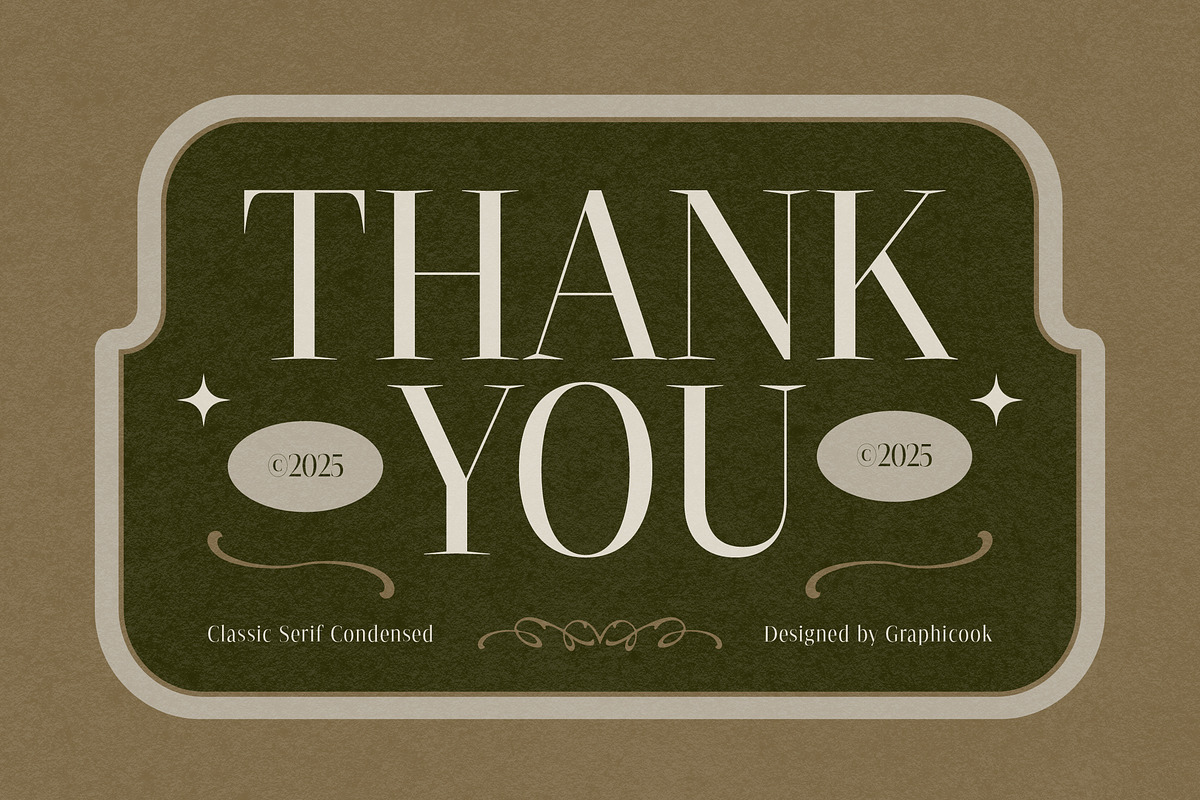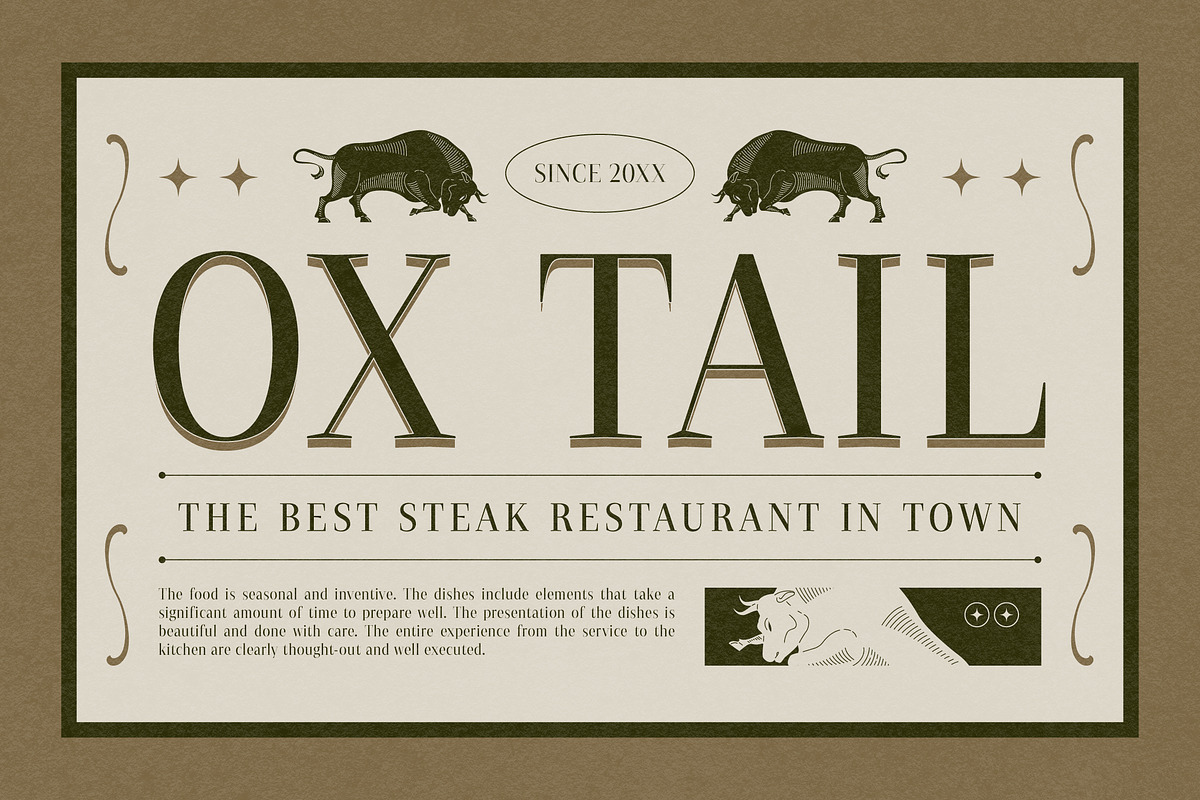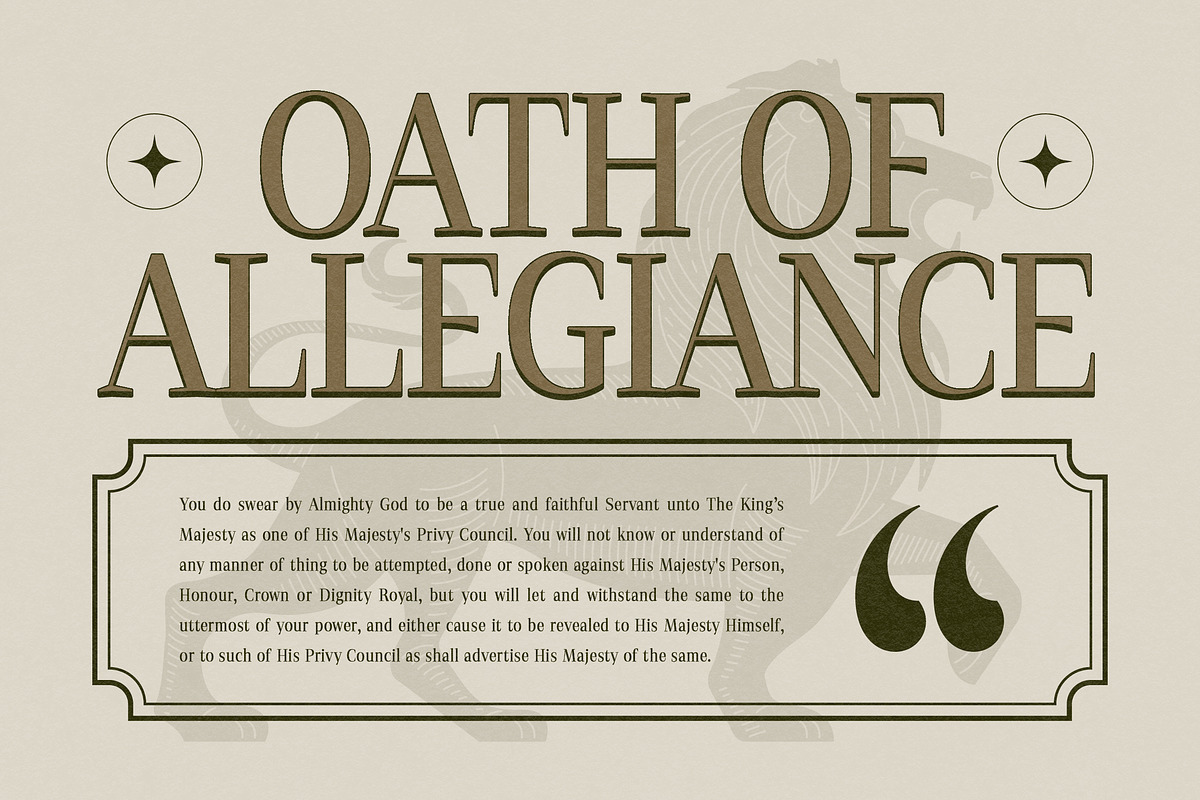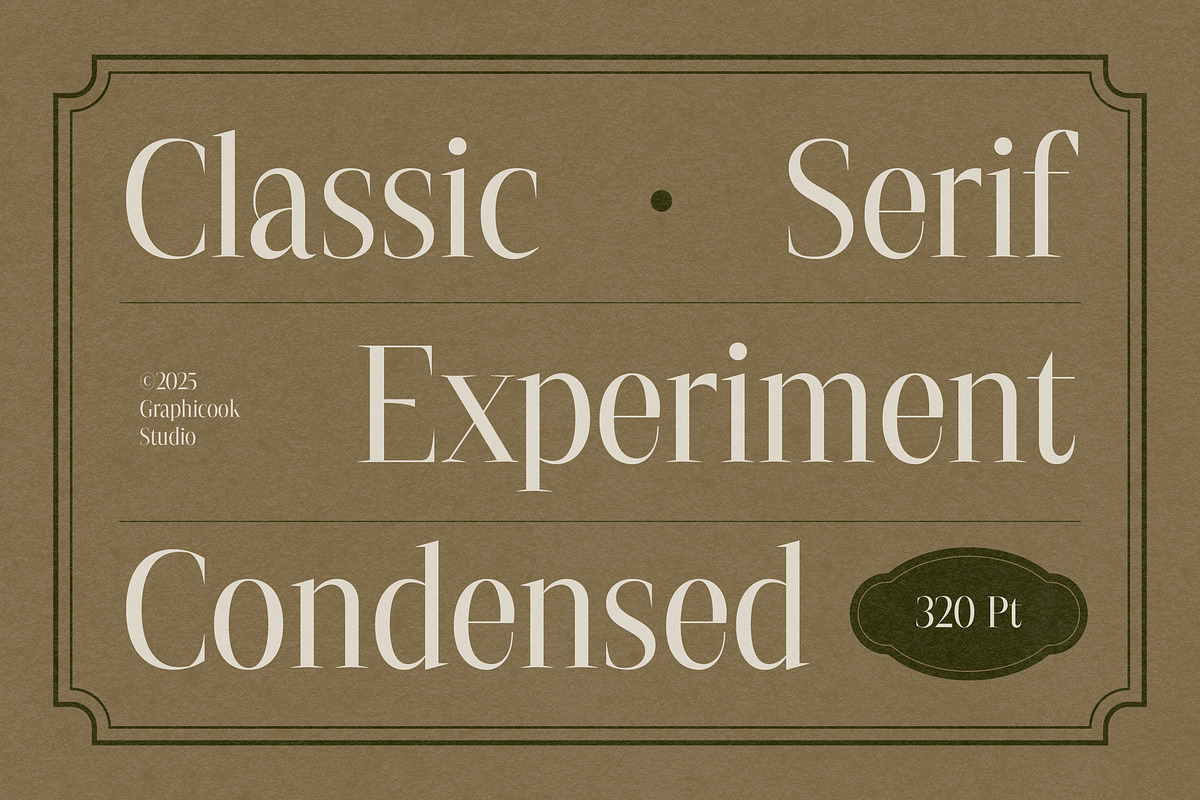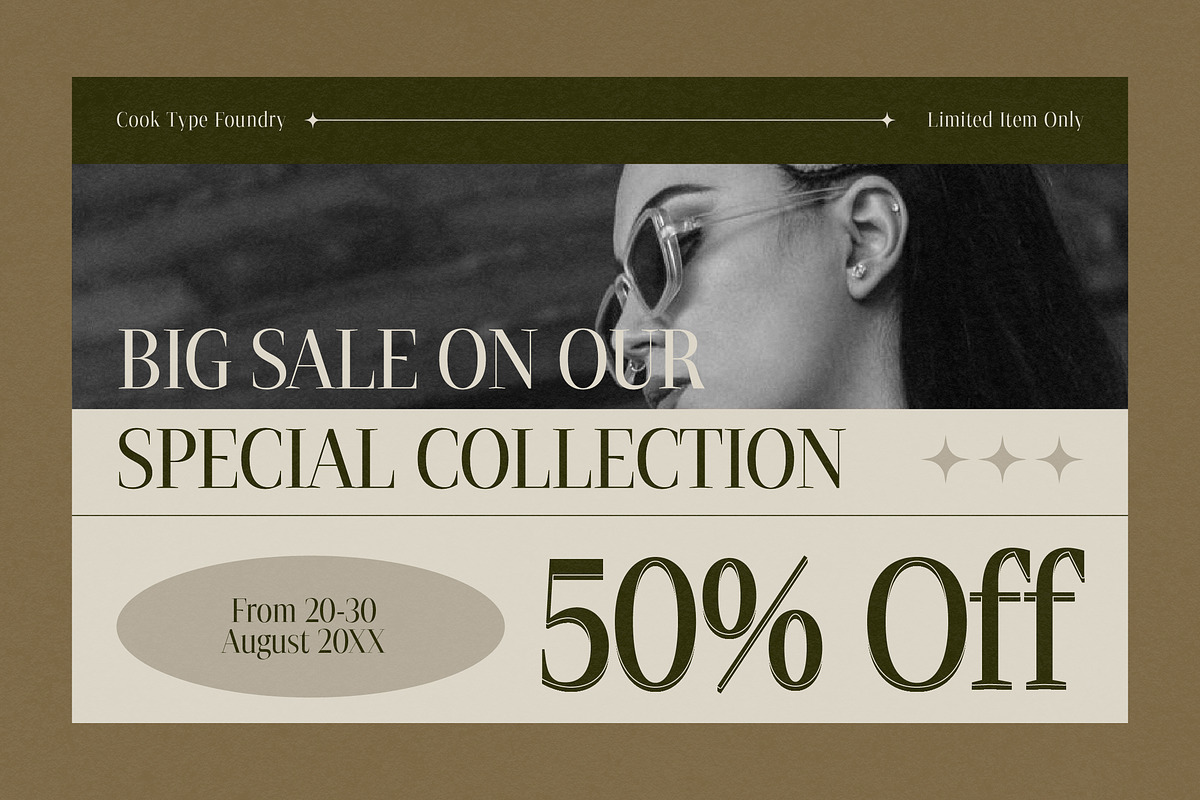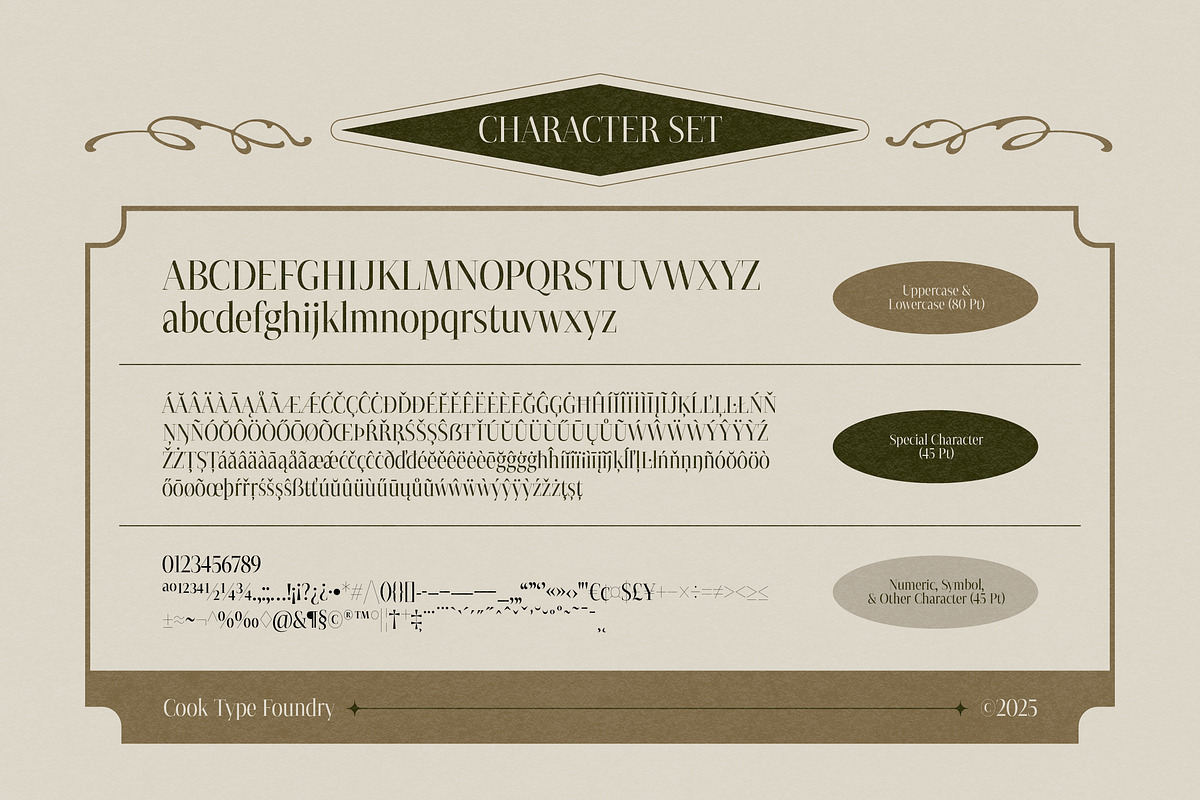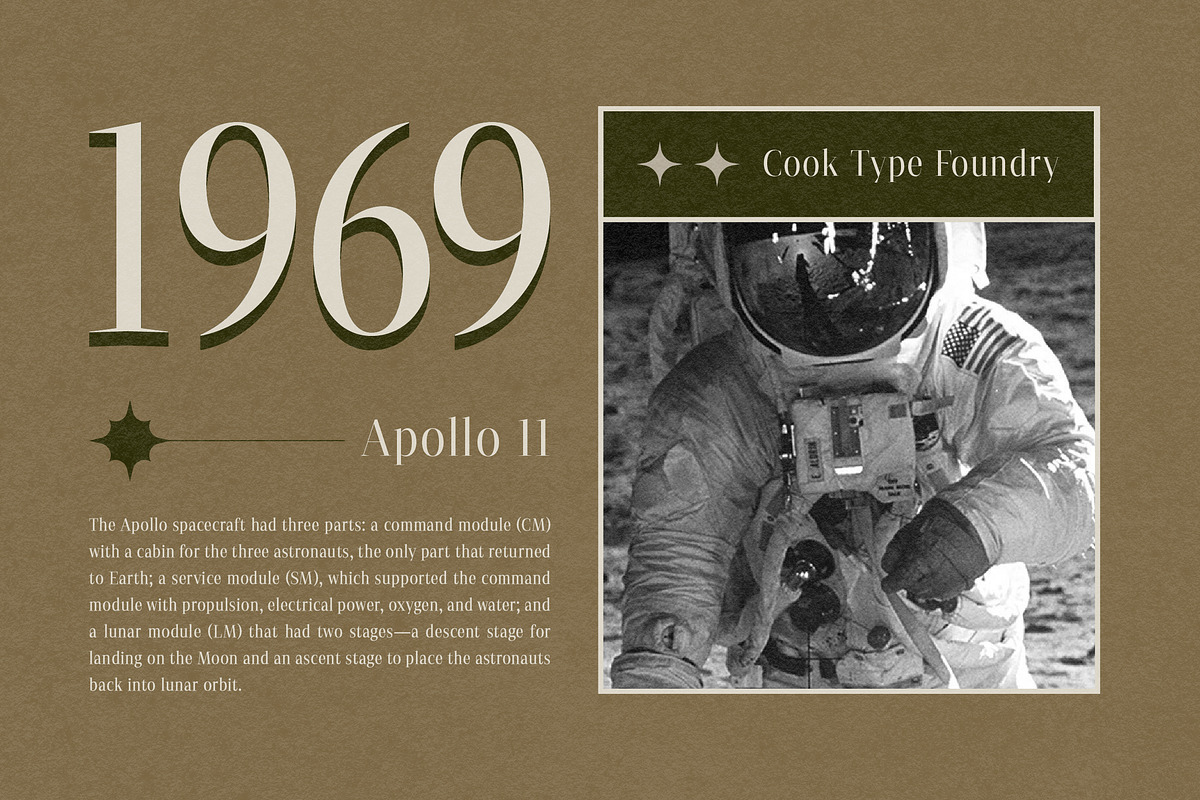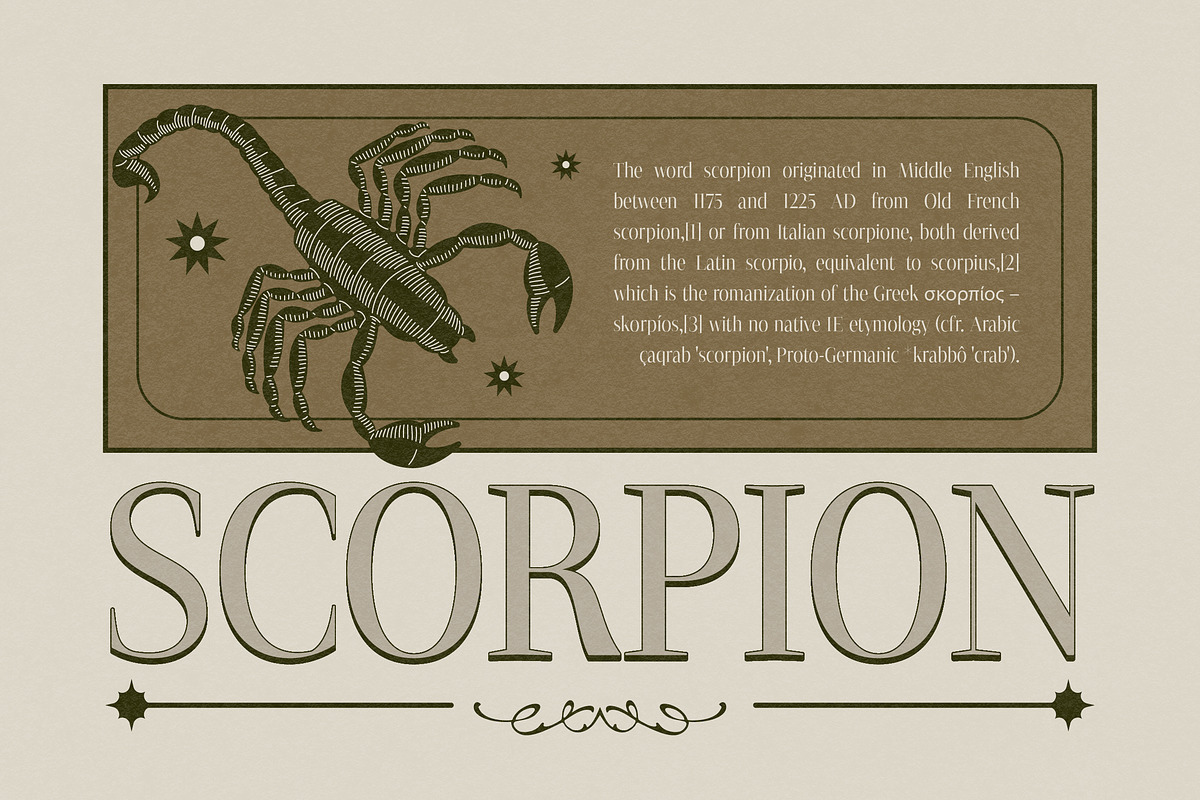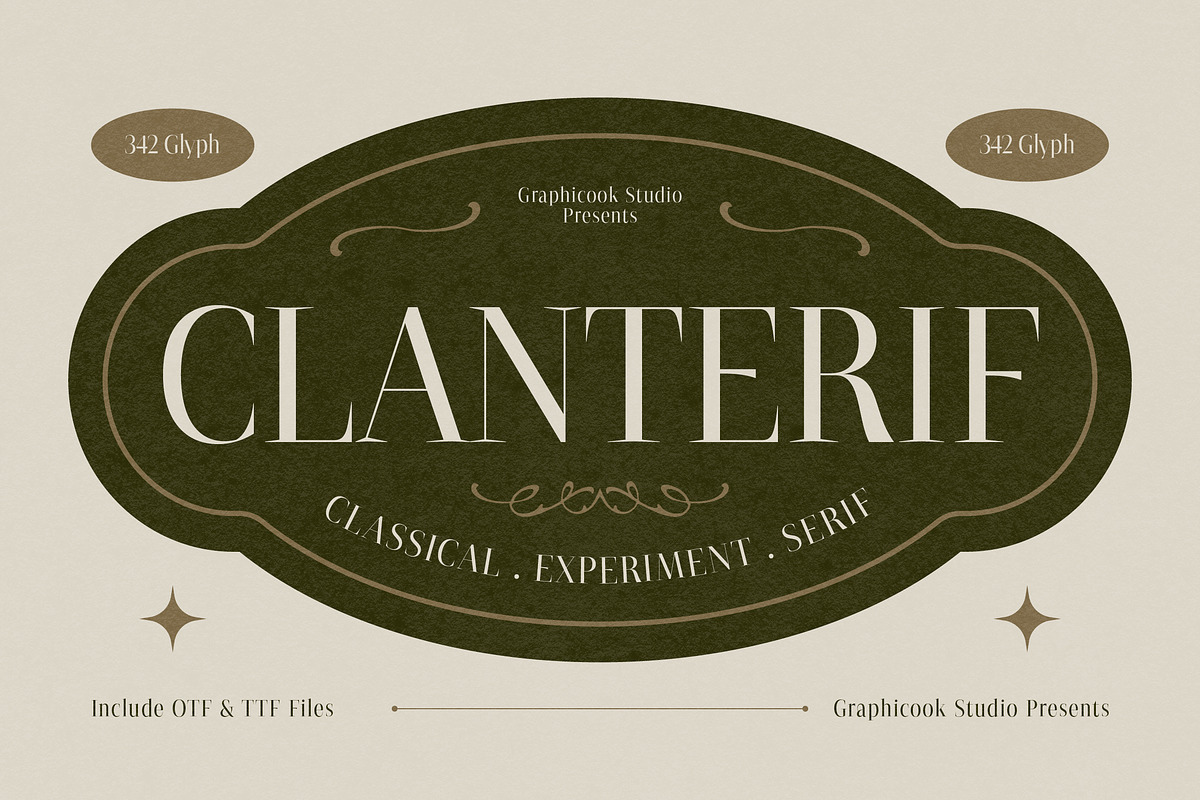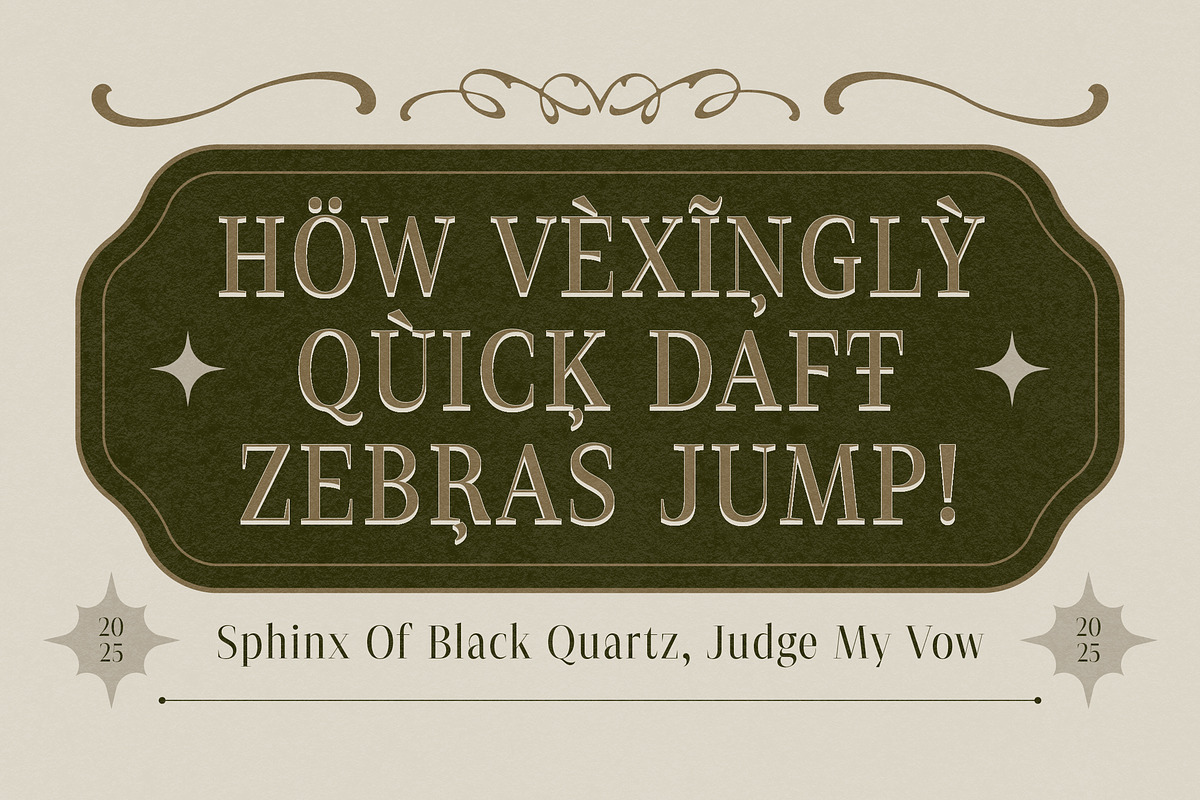
Clanterif
Clanterif is a serif font with a vintage look. Its versatility allows for a wide range of applications, from headlines to body text, making it an excellent choice for bringing timeless elegance to any design.
Clanterif is perfect for headlines, logotypes, magazines, packaging, quotes, movies, games, cover albums, book covers, and flyers, it's a perfect solution for creating eye-catching designs that stand out in any context.